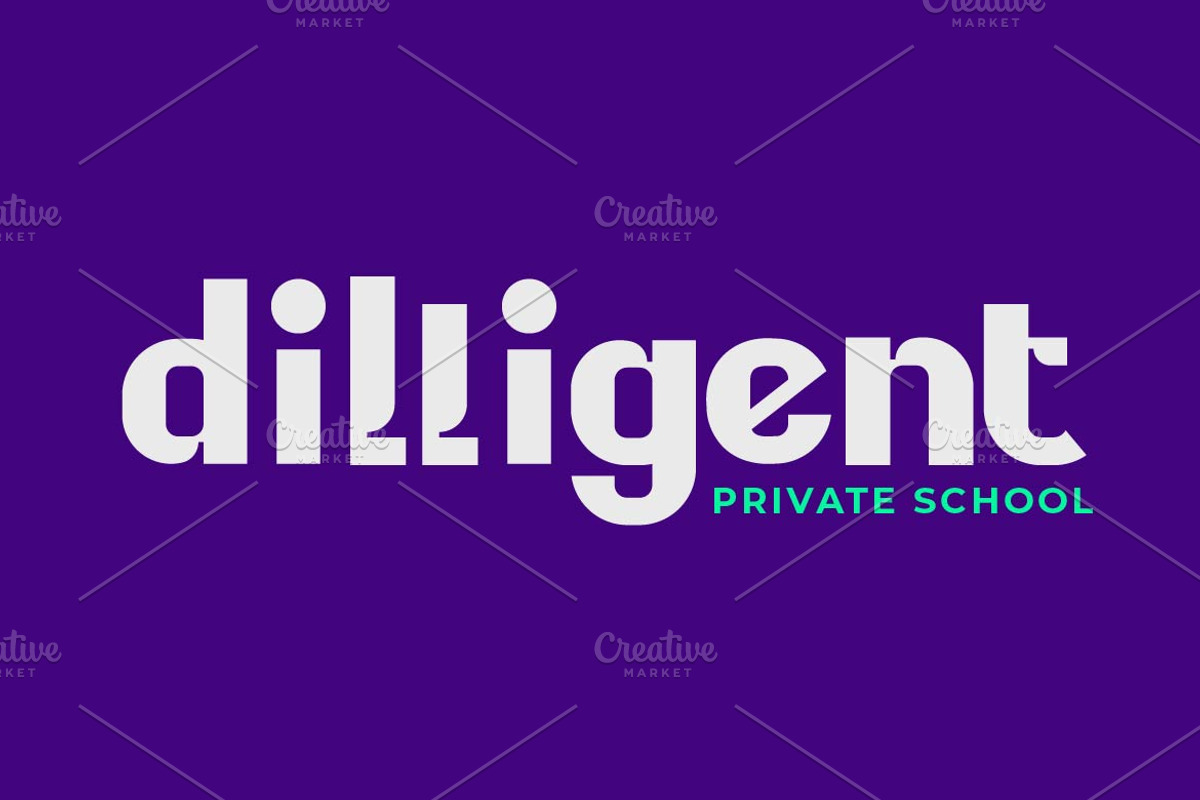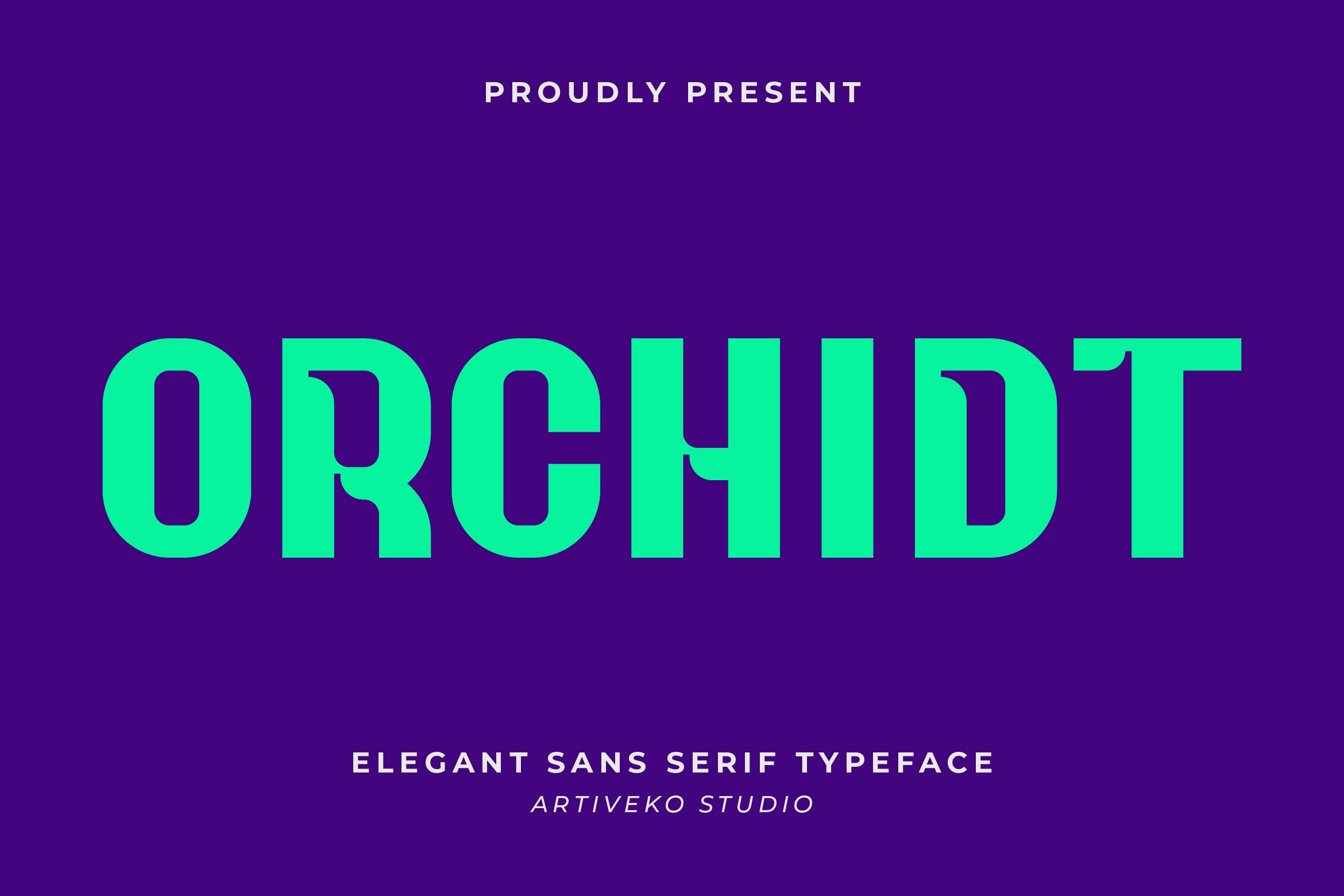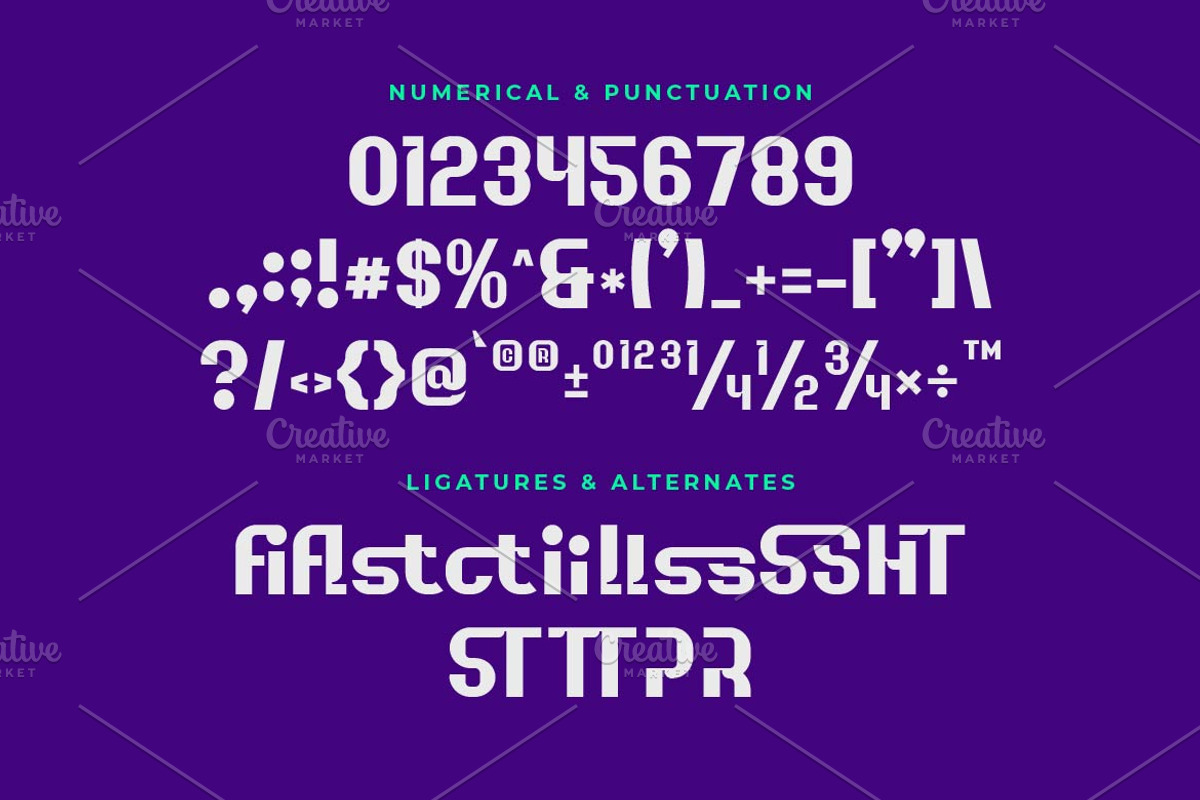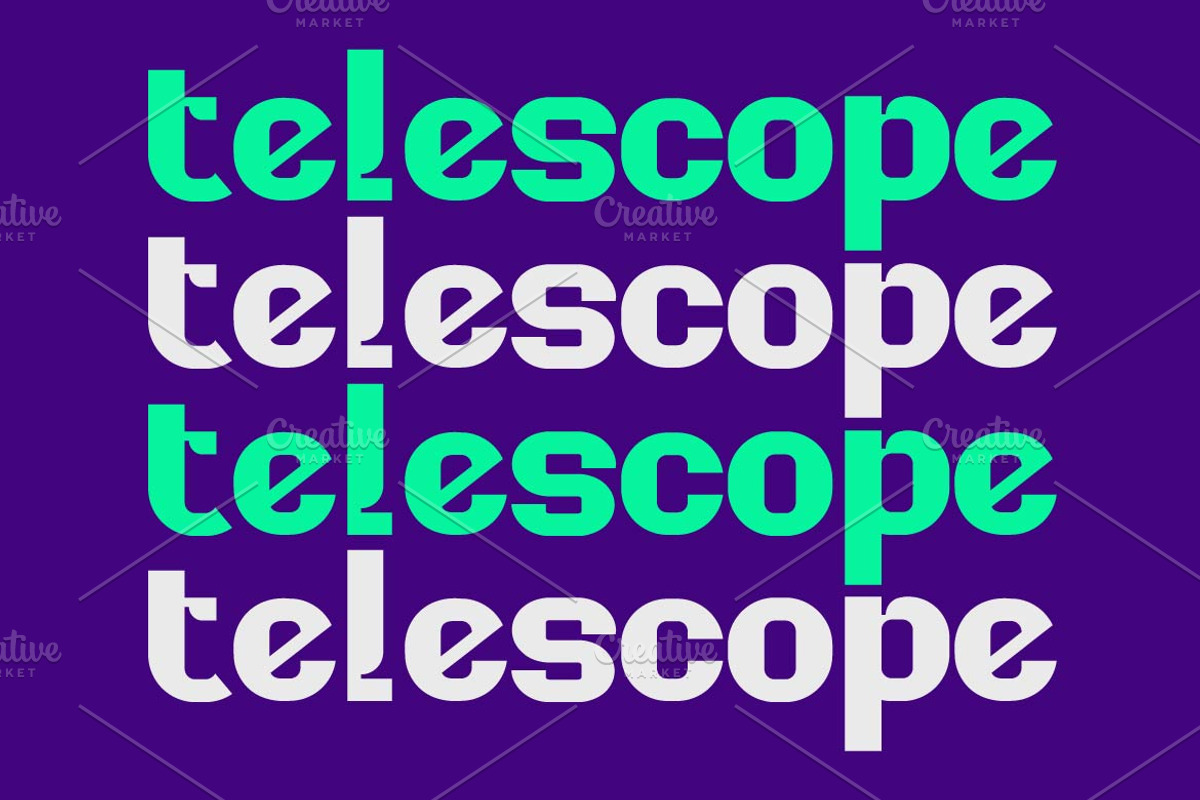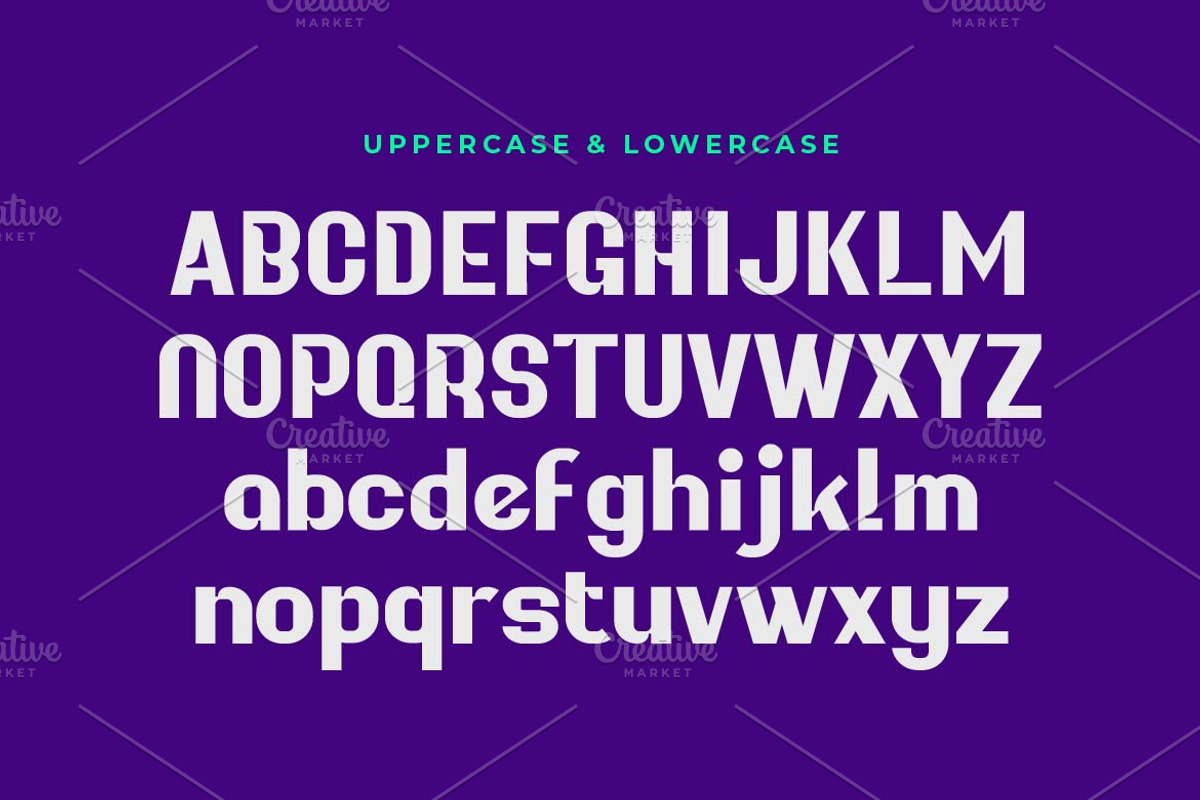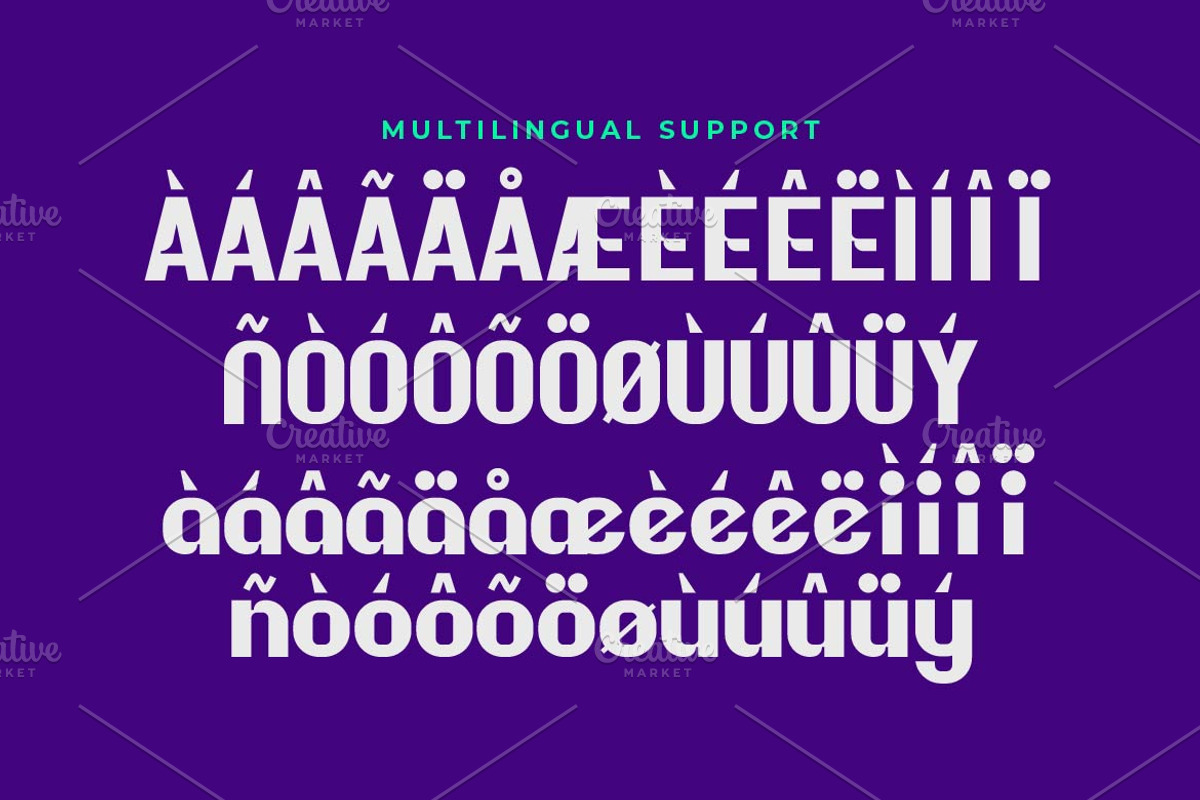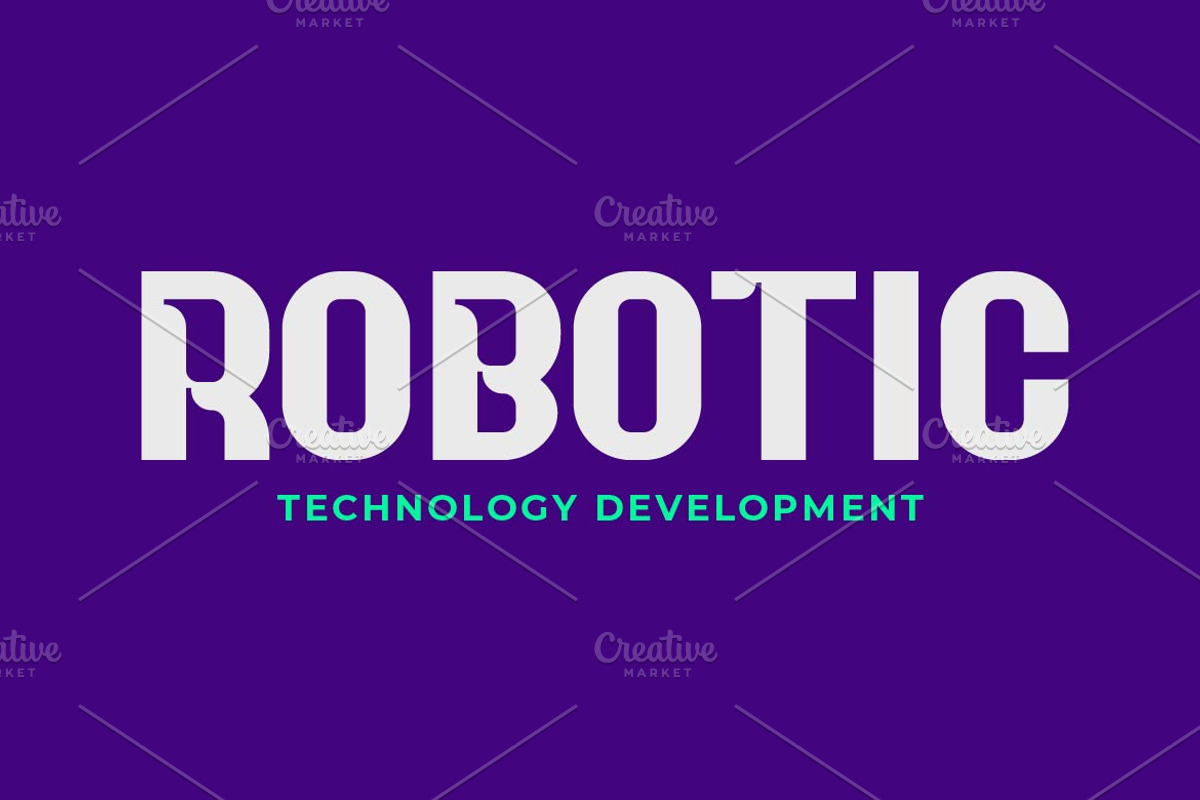
Orchidt Tech Sans Font
Orchidt is a modern tech sans serif font by Iwan Alwan, featuring sleek, futuristic letterforms that embody innovation and precision. Perfect for tech branding, UI/UX design, app interfaces, and futuristic visuals, Orchidt combines clean geometry with a contemporary aesthetic. With multilingual support, ligatures, and alternates, Orchidt offers versatility while maintaining its cutting-edge, tech-inspired style, making it ideal for projects that demand a forward-thinking and professional look.